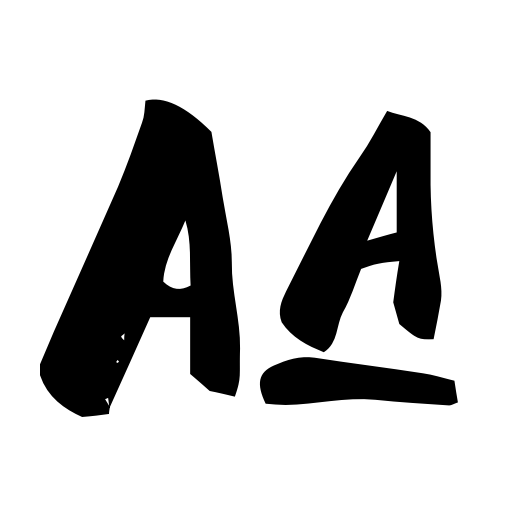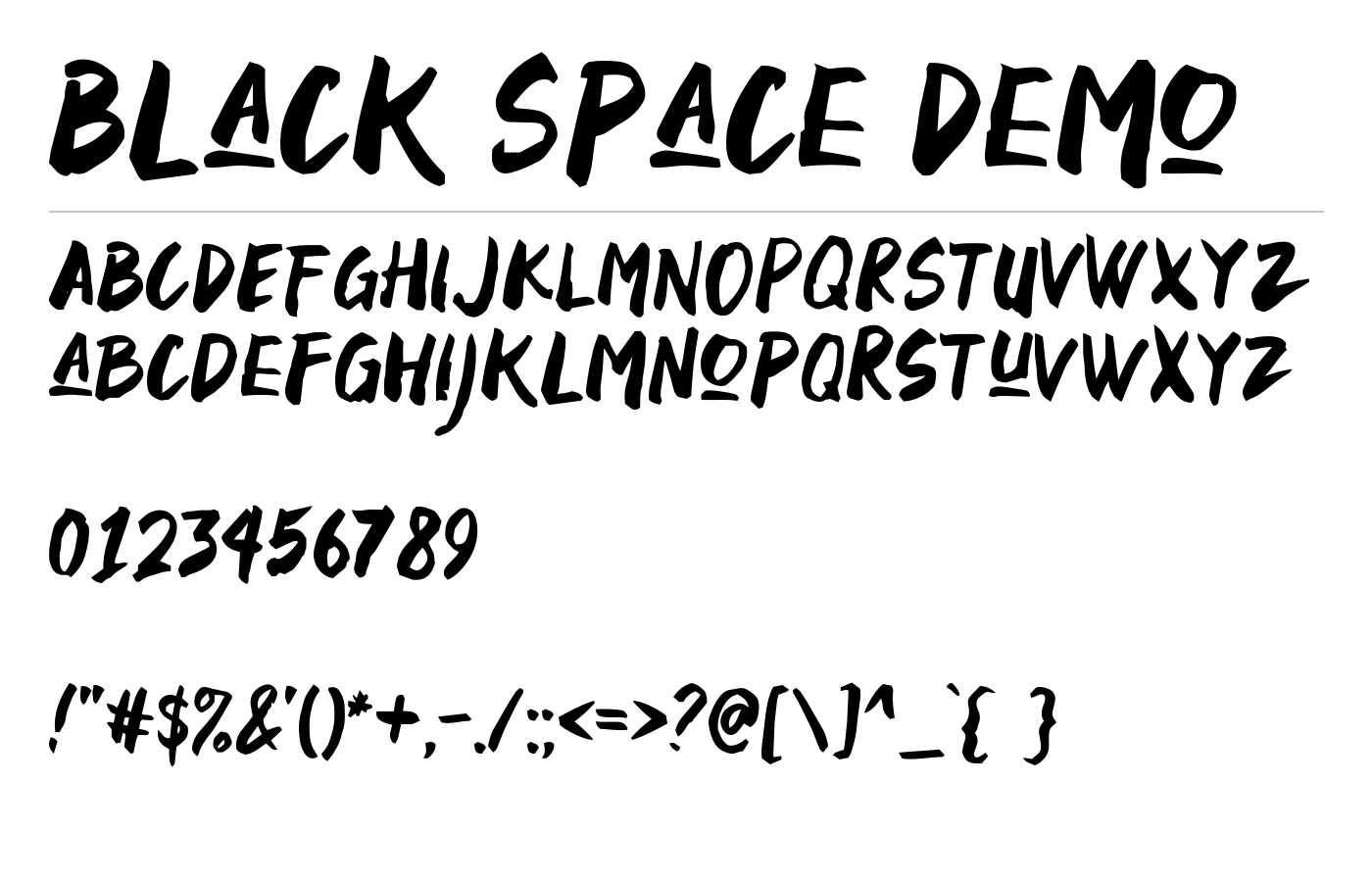
Black Space Demo is a bold, hand-drawn sans serif font with a casual, energetic feel. Its irregular, brush-like strokes and playful underlines give it a dynamic and expressive personality, making it ideal for creative branding, posters, and headlines that want to stand out with a lively, artistic vibe. This font works best where a unique, informal voice is needed to grab attention and infuse designs with personality.
Black Space Demo Font
About Black Space Demo Font
| Font family | Black Space Demo Font |